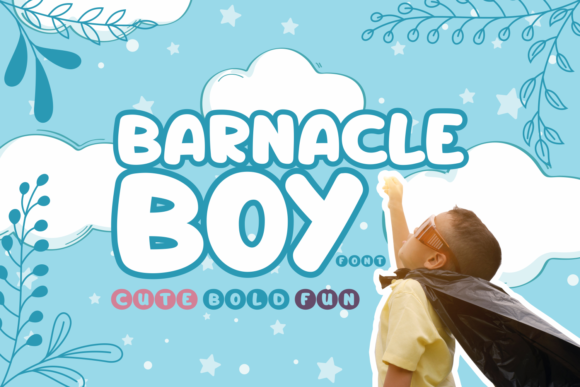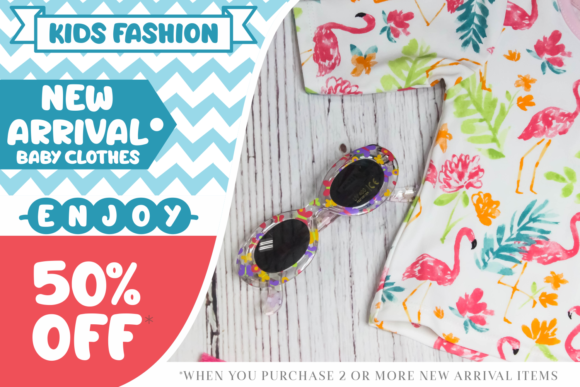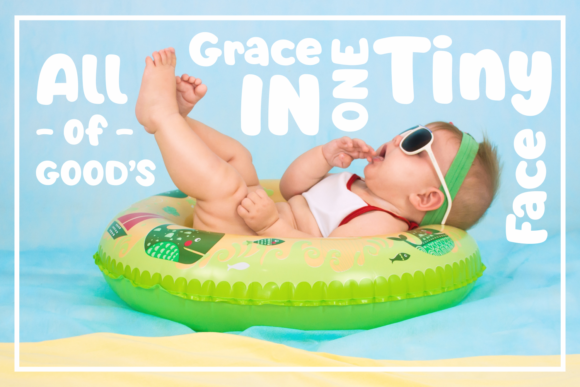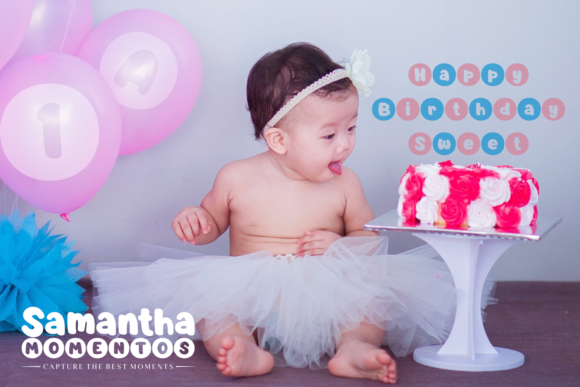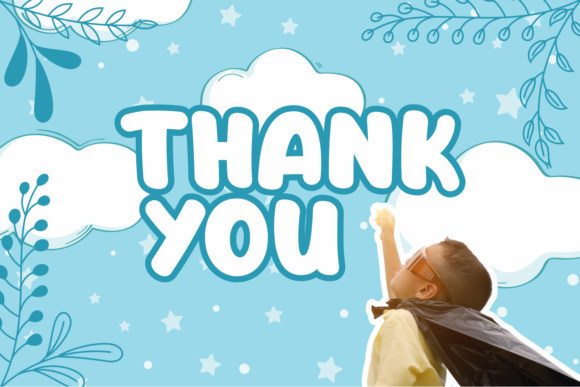
Barnacle Boy Font
About Barnacle Boy Font
The Barnacle Boy is a fun and playful script font. It’s bold letters have a great readability and a cute feel which makes it perfect for children designs, and designs which need a touch of happiness.